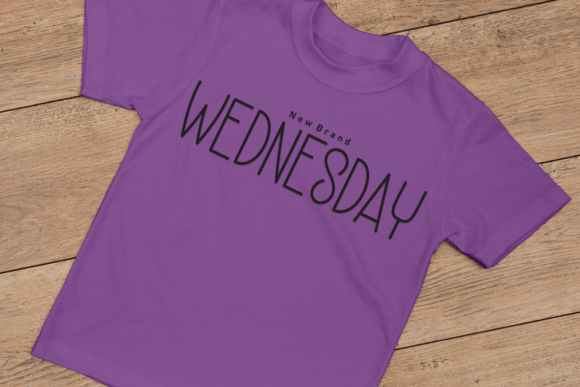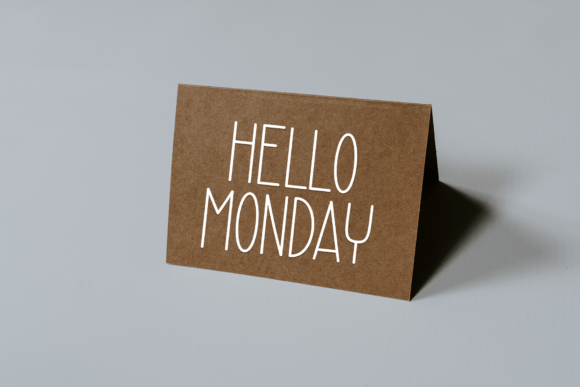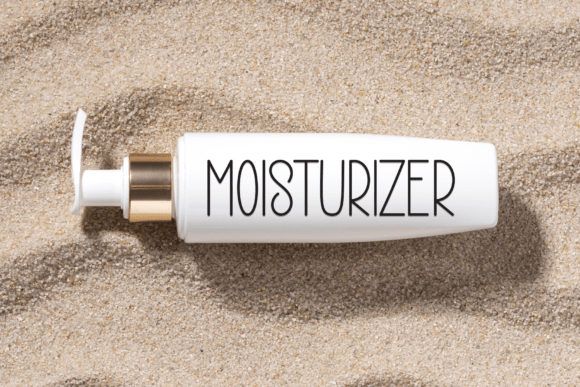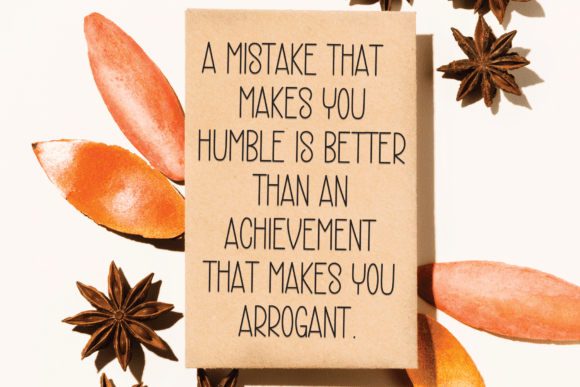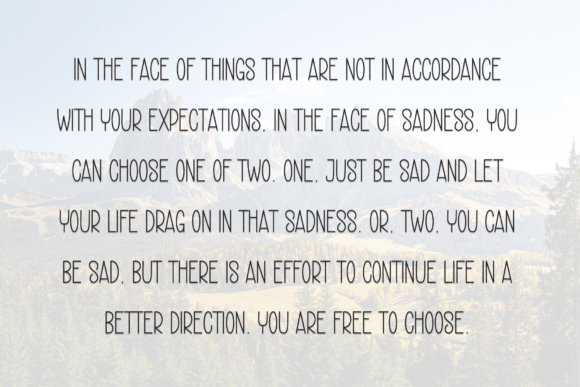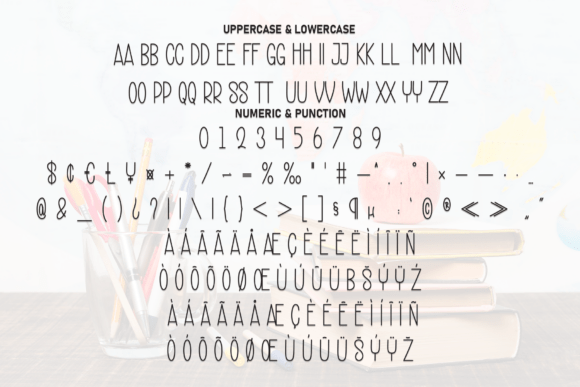
Unlock the Magic of the Alphabet Font
Have you ever been captivated by the charm of a handwritten note or the whimsy of a vintage typographic design? For many designers, the perfect font can evoke emotions and transport us to a world of creativity and possibility. The Sweet and Friendly Handwritten Display Font is one such treasure that has captured the hearts of many.
This delightful Alphabet Font is more than just a typographic choice – it’s a tool for bringing joy and personality to your designs. With its lively character designs and youthful vigor, it’s the perfect choice for dreamy wedding invites, heartfelt greeting cards, and any design yearning for a spark of happiness.
Whether you’re a seasoned designer or just starting out, the Sweet and Friendly Handwritten Display Font is a valuable addition to your toolkit, guaranteed to breathe new life and radiant energy into all your creative concepts.
Key Features of Alphabet Font
• Font Style: Alphabet Font is a sans-serif font designed for readability and versatility. It is available in uppercase and lowercase letters.
• Character Set: The font includes a comprehensive character set, including uppercase and lowercase letters, numbers, punctuation marks, and special characters.
• Unique Characteristics: The font features a unique, modern design with clean lines and a neutral color palette, making it suitable for use in a wide range of applications, including corporate branding, advertising, and digital media.
Alphabet Font Review
Overall, I think Alphabet Font is a solid choice for designers looking for a classic, clean font. Here are some of its strengths: ✨
• Classic and timeless feel that works well for headings and titles
• Highly legible, even at smaller font sizes
• May not be the best choice for modern or minimalist designs, as it can feel a bit dated
• Some users may find it too plain or boring
• Lacks bold or italic variations, which can limit its usability in certain contexts
Overall, I think Alphabet Font is a reliable choice for designers who want a straightforward, easy-to-read font. It may not be the most exciting or innovative option, but it gets the job done. If you’re looking for a classic font that’s easy to work with, Alphabet Font is worth considering.
Alphabet Font is commonly used for decorative titles, headings, and logos. To get the most out of it, try using it in combination with other creative fonts and graphics. Experiment with different font sizes, colors, and arrangements to achieve a unique look.